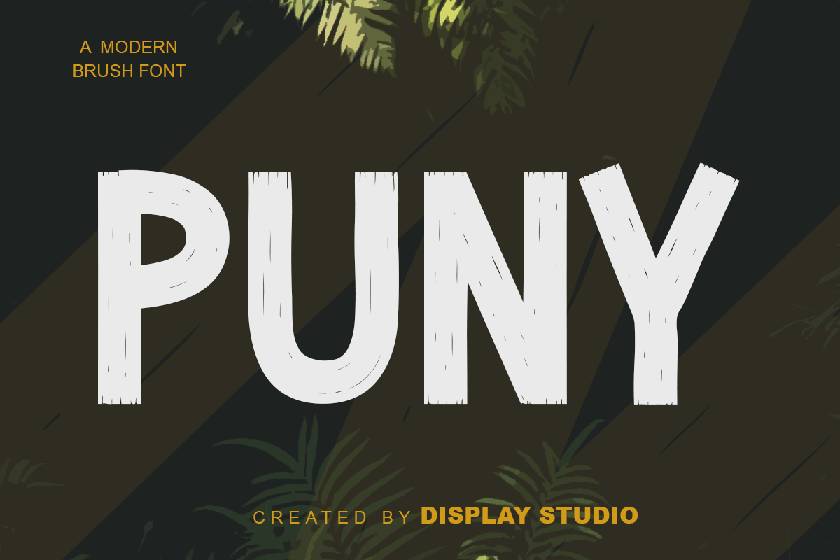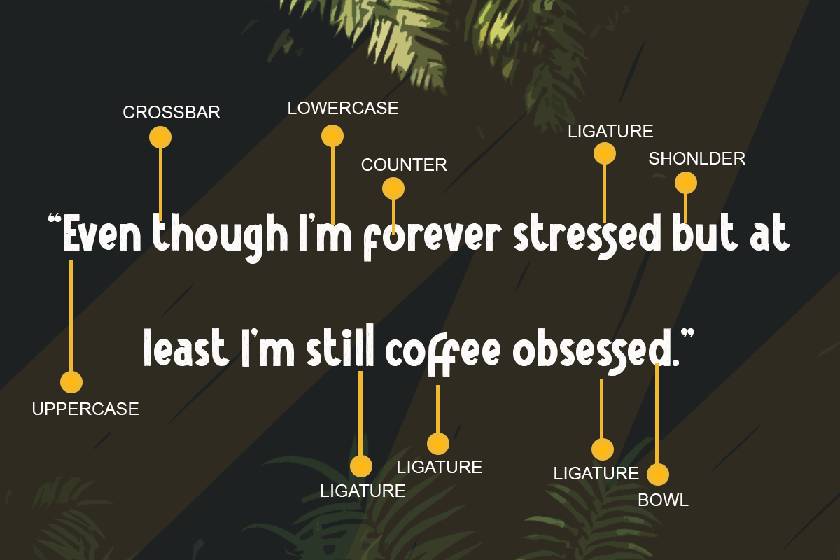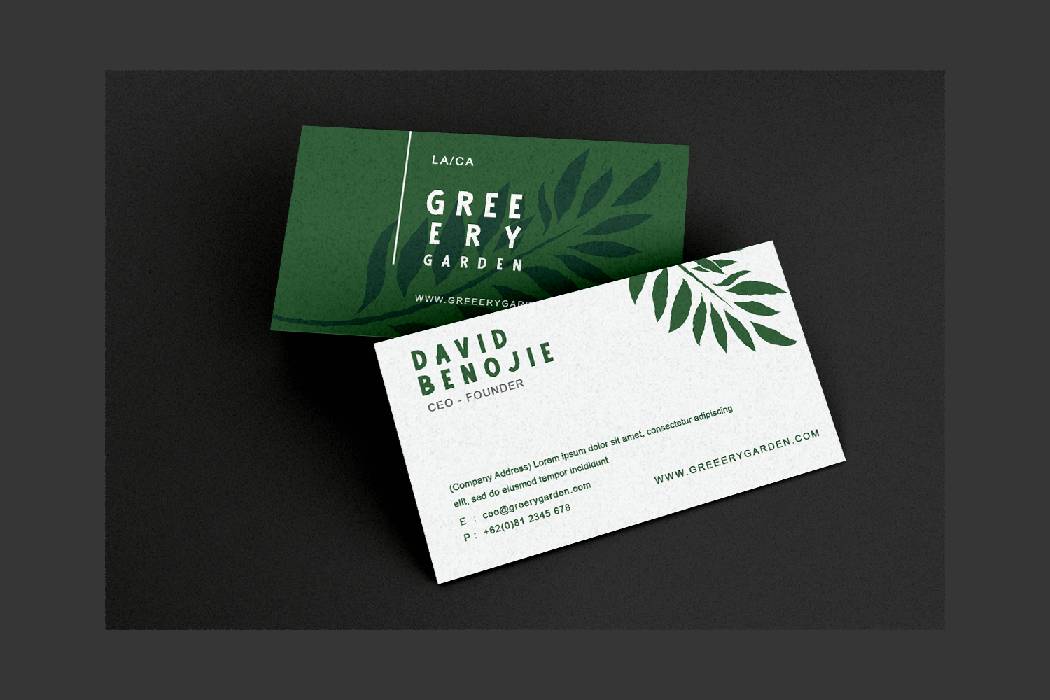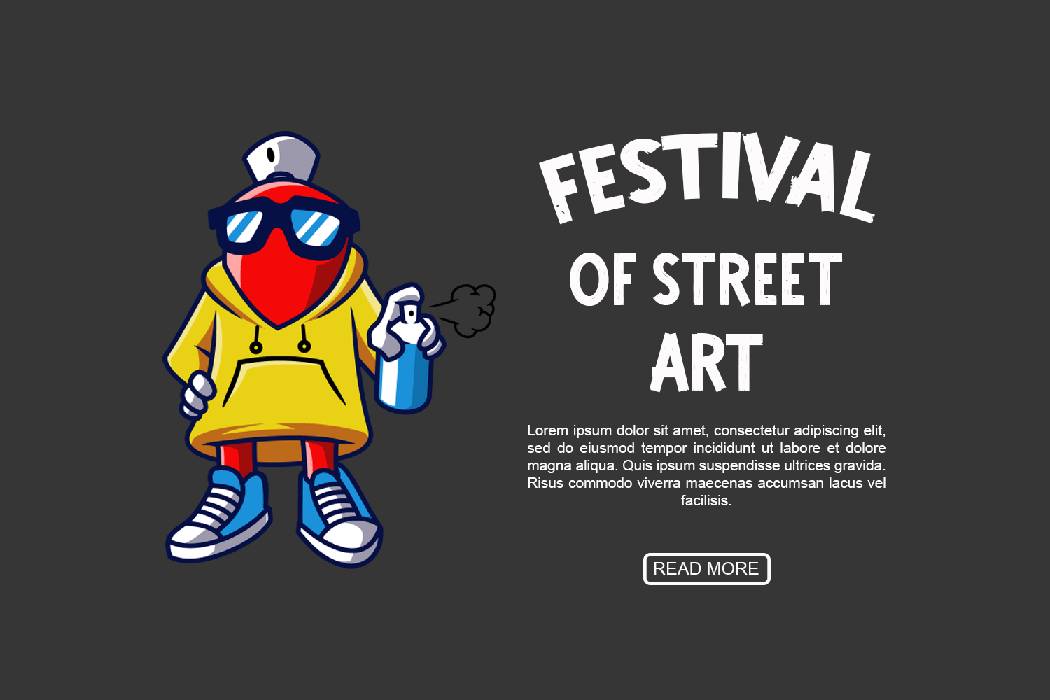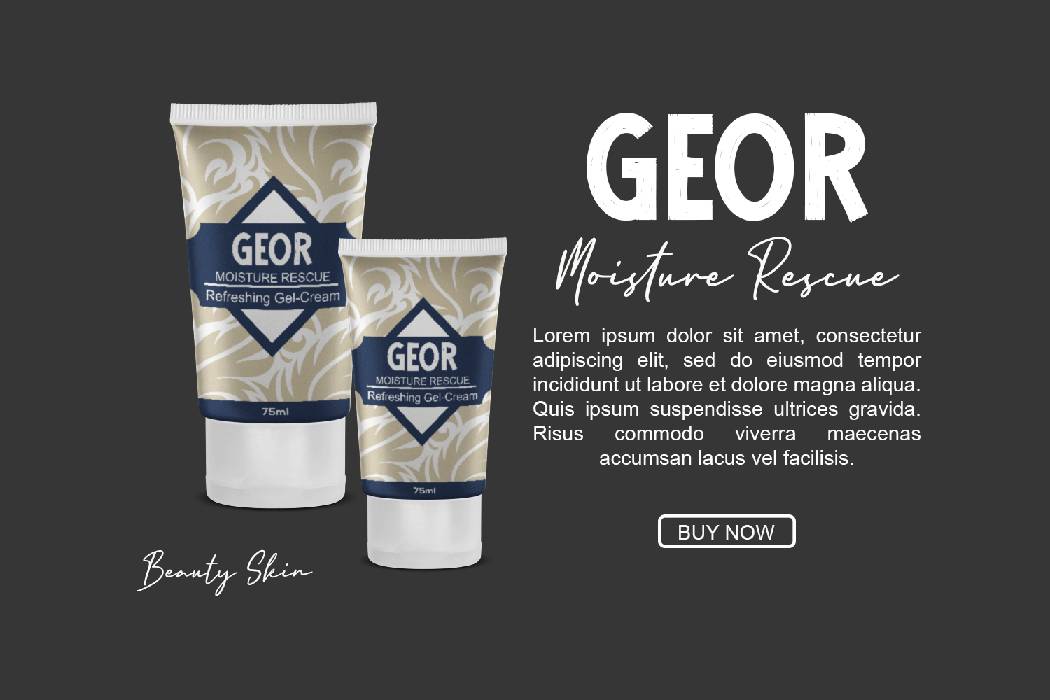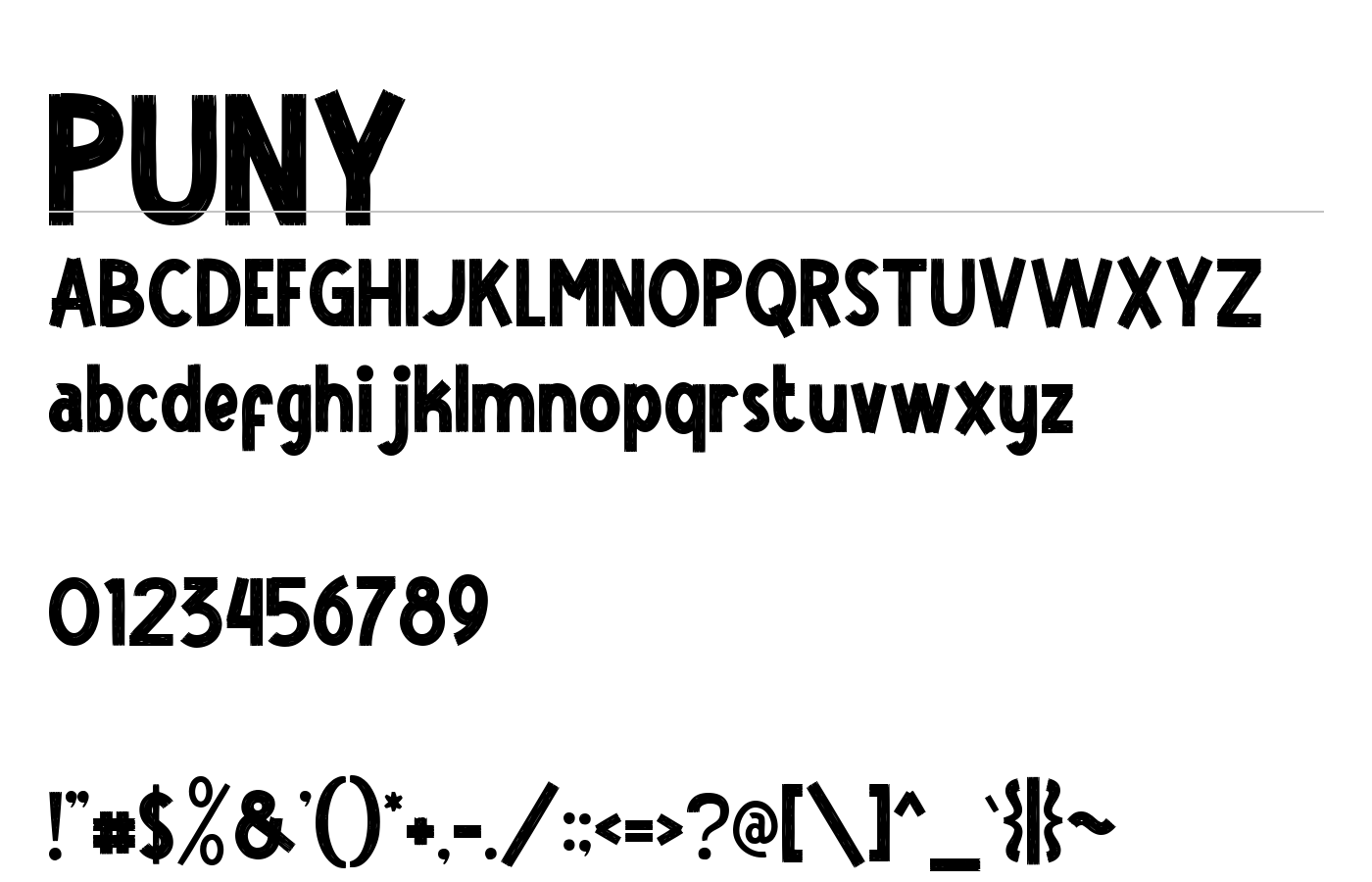
Puny Font is a bold, condensed sans-serif typeface with a playful, hand-drawn texture that gives it a lively and informal personality. Its irregular stroke edges and slightly quirky letterforms make it ideal for creative and casual branding, posters, or any design that aims to stand out with a fun and approachable vibe. This font works well in display sizes where its unique, textured style can be fully appreciated.
Puny Font
About Puny Font